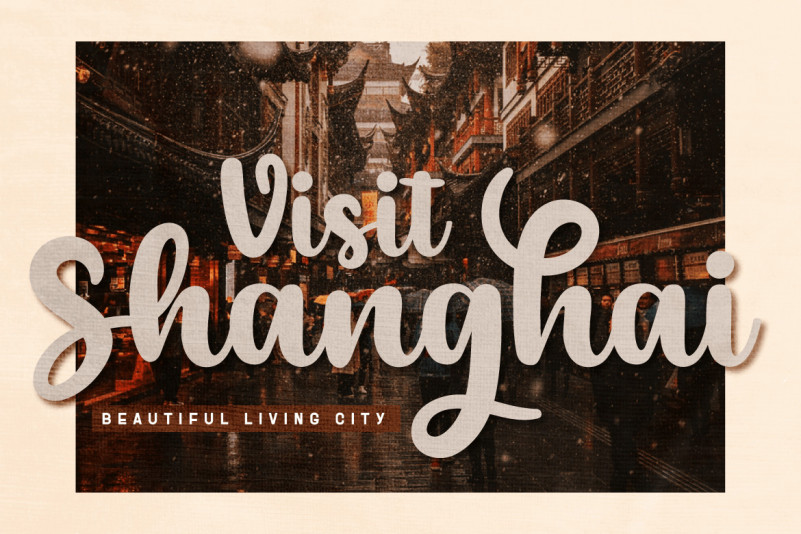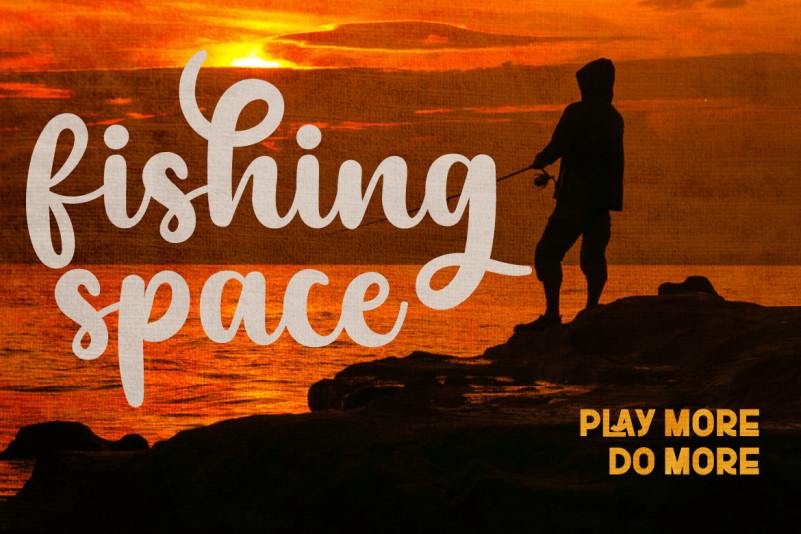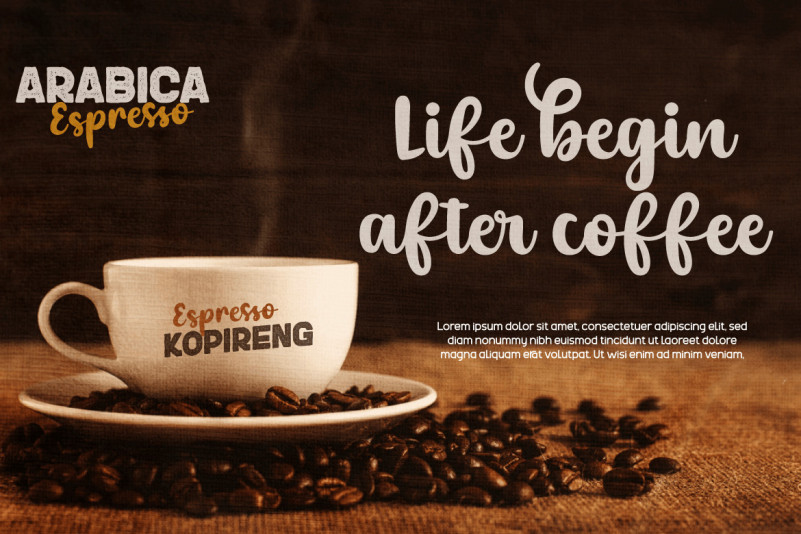
Shyness Font
Shyness Script Font
This is a handwritten bold script font with a classic and authentic background in a variety of elegant styles. fonts made with various references to create a strong and sharp impression, so that when you use it in a project, the message will be conveyed strongly to all audiences.
This font is designed to create portions and compositions that suit your needs, also designed with a natural hand touch, has alternative features, ligatures and also supports multi-language, So this font is suitable for crafts, outdoor activities, logotypes, posters, titles, banners, wedding invitations, product packaging logos, quotes, social media page covers, book covers and more.